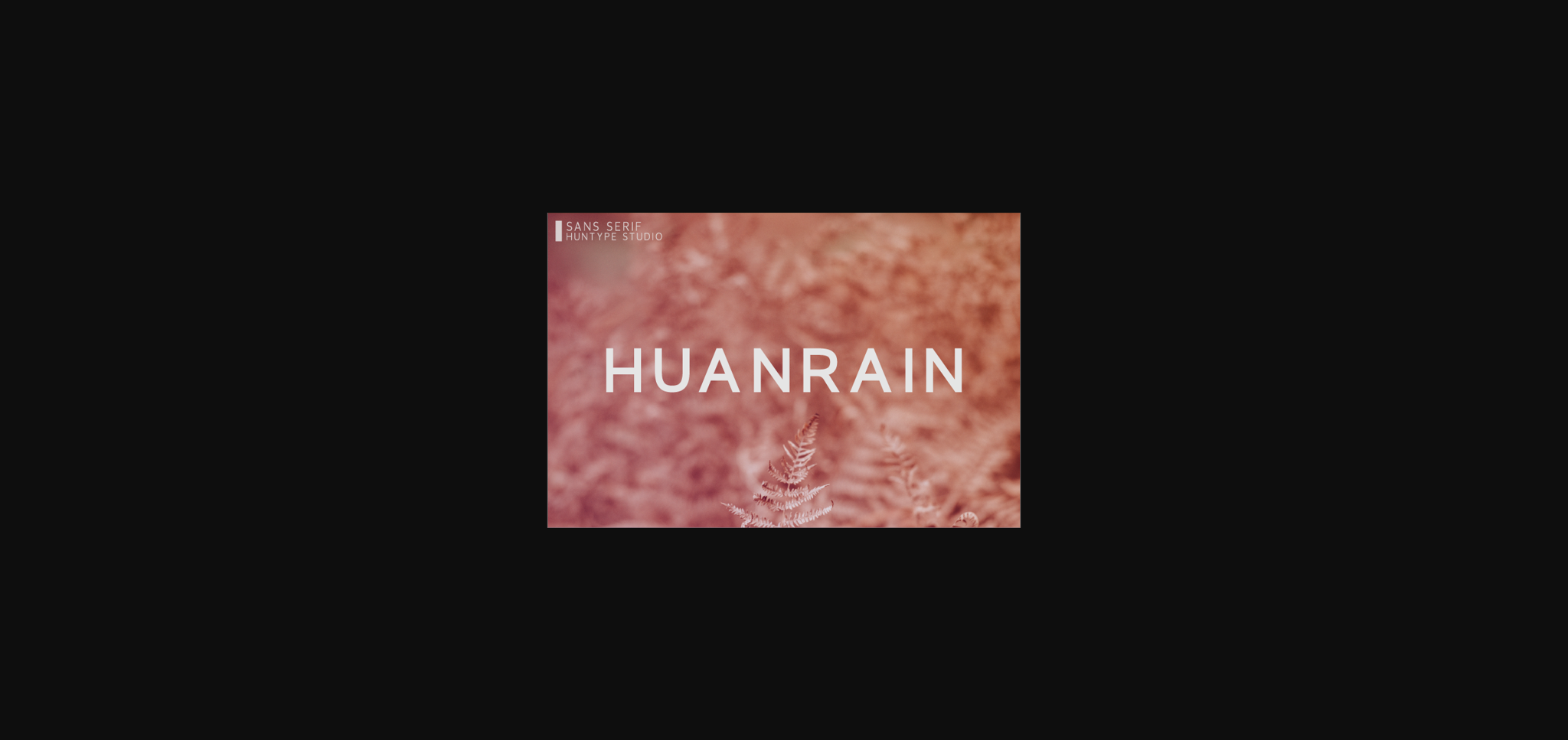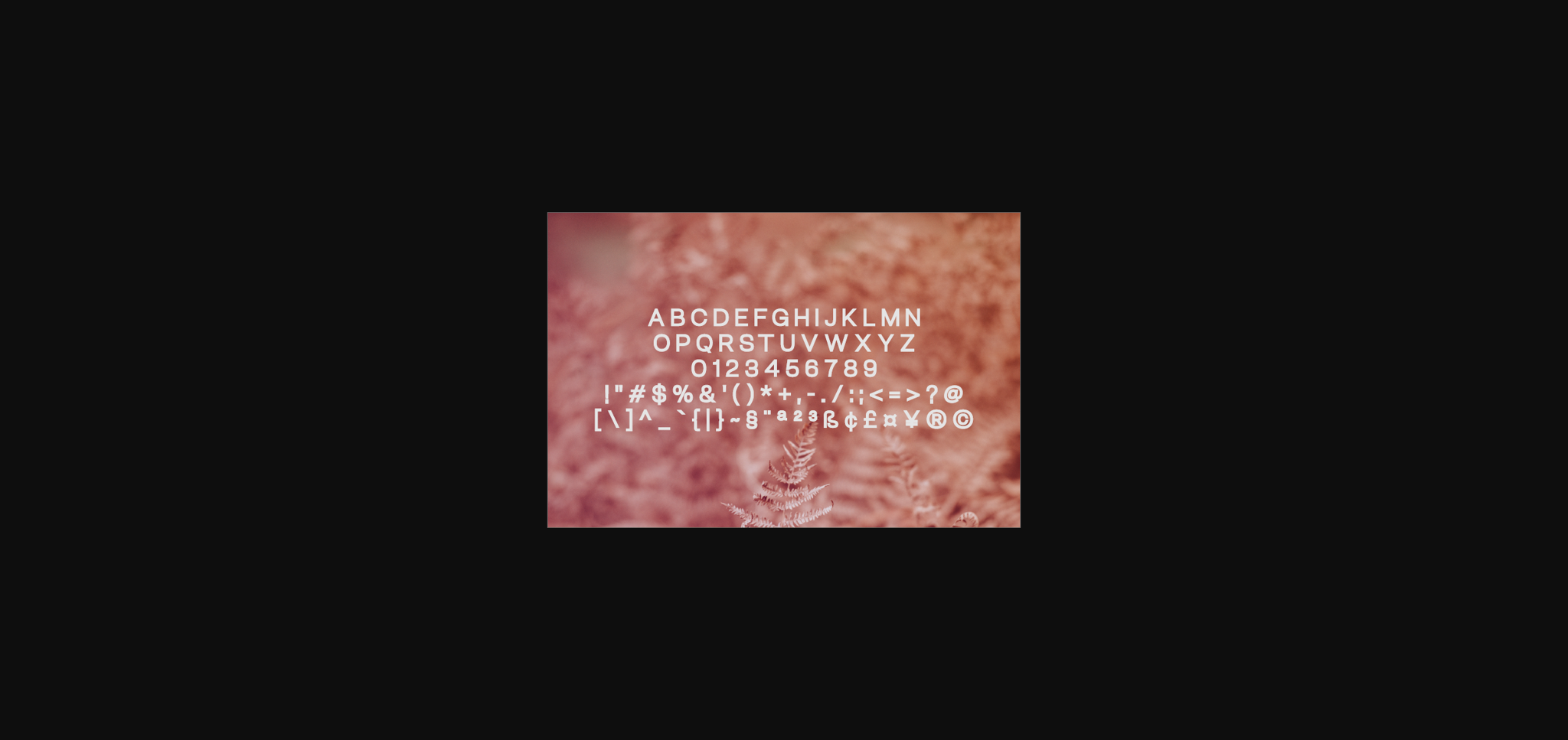
HomeSans Serif FontsHuanrain Font Sans Serif Fonts Huanrain Font FacebookXPinterestWhatsApp 1 of 4 ... Huanrain Font Poster 2... Huanrain Font Poster 3... Huanrain Font Poster 4... About Huanrain Font Huanrain feels equally charming and elegant. This elegant sans serif font is perfect for making original and outstanding designs. DOWNLOAD NOW People also explored Mitha Adelle Font Young Knight Font New Alenia Font Chikachips Boolohoy Font TypeCute Font Aloha Font Patris Joyful Font Yes Margo Font Jinxed 281 0 TagsHuanrain Font Previous articleGonzalight FontNext articleHanako Font LEAVE A REPLY Cancel reply Comment: Please enter your comment! Name:* Please enter your name here Email:* You have entered an incorrect email address! Please enter your email address here Website: Save my name, email, and website in this browser for the next time I comment. Personal Use Free Bellarin Personal Use Free Read more about this font Soulties Personal Use Free Read more about this font Spectrashell Personal Use Free Read more about this font Austins Personal Use Free Read more about this font BLOG Top 10 Handwritten Fonts That Elevate Your Designs Top 10 Handwritten Fonts That Will Elevate Your Designs Handwritten fonts bring a warm, personal touch to every creative project. Whether you're designing logos, invitations,... Using Fonts in Digital Marketing: Tips to Strengthen Your Brand Identity Where to Buy American Fonts Online in 2024 Fonts That Capture the Spirit of New York City